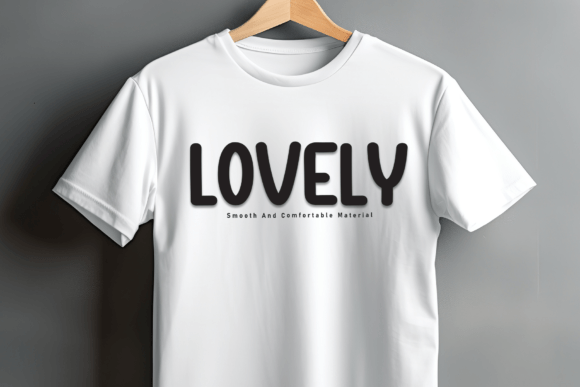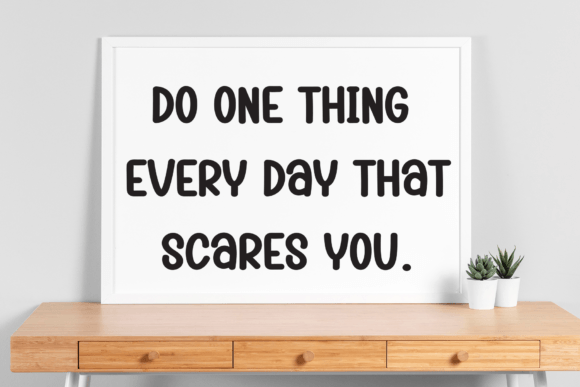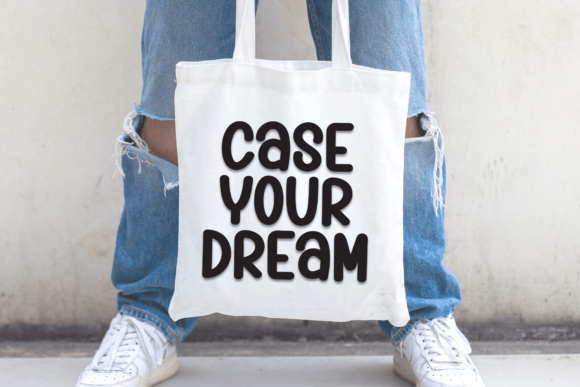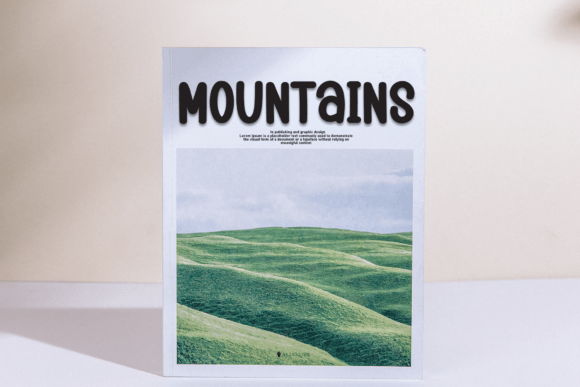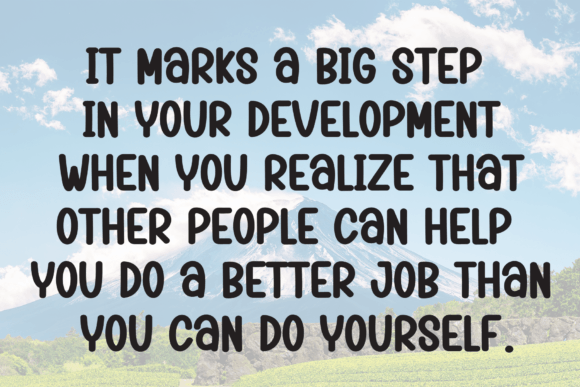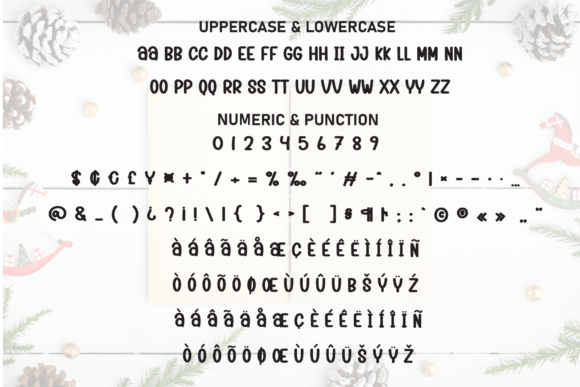
Introducing Christmas Notes Font: The Perfect Addition to Your Holiday Designs
As the holiday season approaches, designers and crafters are on the lookout for the perfect fonts to add a touch of magic to their Christmas projects. If you’re searching for a font that exudes a relaxed and friendly vibe, look no further than Christmas Notes Font. This casual handwritten font is ideal for personal projects, social media, and invitations, bringing an effortless, charming touch to any design.
The Characteristics of Christmas Notes Font
Christmas Notes Font is a beautifully crafted handwritten font that boasts natural, flowing strokes. Its easygoing style adds warmth and authenticity to any design, making it perfect for those looking to create a cozy and inviting atmosphere. The font’s relaxed vibe is reminiscent of a handwritten note from a friend, making it an excellent choice for personal projects and social media posts.
Why Choose Christmas Notes Font?
So, why should you choose Christmas Notes Font for your holiday designs? Here are just a few reasons:
- Unique and eye-catching: Christmas Notes Font is a one-of-a-kind font that is sure to grab attention. Its distinctive style sets it apart from more traditional fonts, making it perfect for designers looking to create something truly special.
- Versatile: This font is incredibly versatile and can be used for a wide range of projects, from social media posts and invitations to holiday cards and craft projects.
- Easy to read: Despite its casual, handwritten style, Christmas Notes Font is incredibly easy to read, making it perfect for longer texts and paragraphs.
- Authentic: The font’s natural, flowing strokes give it an authentic, handmade feel that is sure to resonate with your audience.
Using Christmas Notes Font in Your Designs
Christmas Notes Font is incredibly easy to use and can be incorporated into a wide range of designs. Here are a few ideas to get you started:
- Holiday cards and invitations: Add a personal touch to your holiday cards and invitations with Christmas Notes Font. Its warm and inviting style is sure to make your recipients feel special.
- Social media posts: Use Christmas Notes Font to add a touch of personality to your social media posts. Whether you’re sharing holiday recipes, decorating ideas, or simply spreading holiday cheer, this font is sure to make your posts stand out.
- Craft projects: Christmas Notes Font is perfect for crafters who love to create handmade gifts and decorations. Use it to add a personal touch to your projects, from knitting patterns to DIY ornaments.
Tips for Pairing Christmas Notes Font with Other Fonts
While Christmas Notes Font is beautiful on its own, it can also be paired with other fonts to create a truly unique look. Here are a few tips for pairing Christmas Notes Font with other fonts:
- Pair with a bold font: Pair Christmas Notes Font with a bold, sans-serif font to create a striking contrast. This is perfect for headings and titles.
- Pair with a script font: For a more elegant look, pair Christmas Notes Font with a script font. This is perfect for creating beautiful, flowing text.
- Pair with a serif font: For a more traditional look, pair Christmas Notes Font with a serif font. This is perfect for body text and longer paragraphs.
Christmas Notes Font is a beautiful, casual handwritten font that is perfect for adding a touch of warmth and authenticity to your holiday designs. Its natural, flowing strokes and easygoing style make it ideal for personal projects, social media, and invitations. Whether you’re a designer, crafter, or simply someone who loves the holiday season, Christmas Notes Font is sure to become a favorite in your font collection.